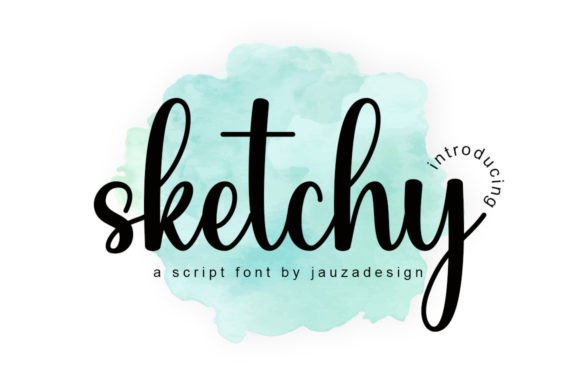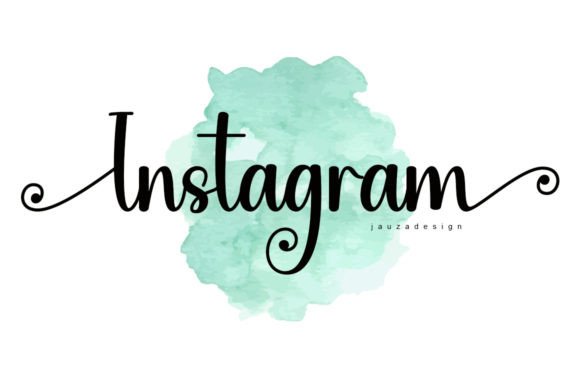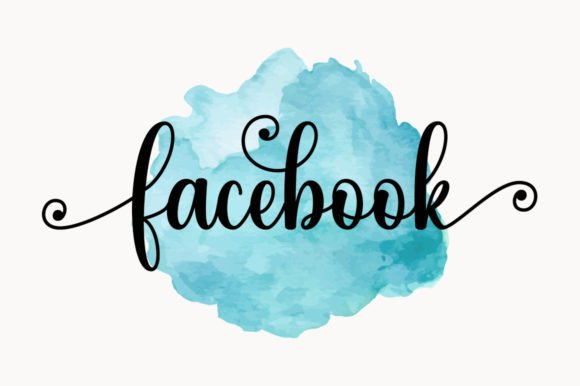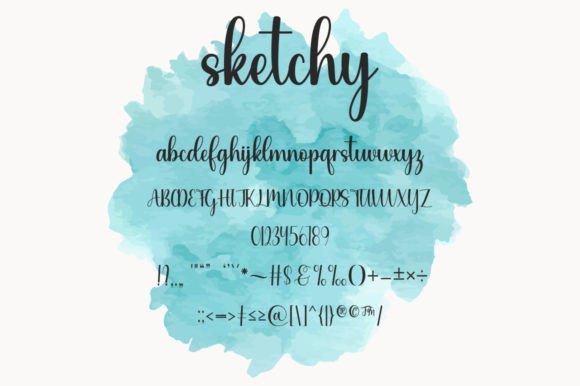
Sketchy Font : A Delicate Script Font for Versatile Design
Sketchy is a lovely and delicate script font that offers surprising versatility for a wide range of creative projects. Its adaptability allows it to enhance various designs, producing delightful results that will amaze you.
Key Features of Sketchy Font
- Delicate Script Style: Adds a sense of elegance and authenticity to your designs.
- PUA Encoding: Easy access to all glyphs and swashes for enhanced creativity.
- Versatile Application: Suitable for branding, invitations, quotes, and more.
Perfect for Multiple Design Projects
Sketchy’s adaptability makes it an excellent choice for:
- Branding and logo design
- Wedding invitations and stationery
- Quotes and inspirational content
- Social media graphics
- Creative projects requiring elegance and authenticity
Enhancing Your Creative Vision
With Sketchy, you can infuse your designs with a sense of elegance and creativity. Its handwritten appearance adds a personal touch that resonates with audiences, making your content more engaging and memorable.
Crafting with Sketchy
For branding and logo design, Sketchy offers the opportunity to create a distinctive visual identity. Its delicate script style can help establish a unique and memorable brand presence that stands out in a competitive market.
Digital Design Applications
In the digital realm, Sketchy shines by adding a touch of sophistication to your content. Use it for:
- Engaging social media posts
- Eye-catching blog headers
- Unique email marketing campaigns
- Distinctive website designs for creative professionals
Sketchy is more than just a font; it’s a creative tool that brings elegance and versatility to your design projects. Its delicate script style makes it suitable for a wide range of applications, from professional branding to personal creative endeavors. By incorporating Sketchy into your designs, you can create visually appealing and memorable content that engages your audience. Whether you’re a professional designer or someone looking to add a personal touch to your projects, Sketchy offers the perfect blend of charm and functionality. Consider pairing Sketchy with clean sans-serif fonts for contrast or complementing it with other script fonts for a dynamic typographic palette. This versatility allows you to create designs that are both elegant and harmonious across various mediums and industries. Embrace the delicate charm of Sketchy today and watch as it transforms your creative ideas into stunning realities. Add this versatile script font to your collection and experience the difference it makes in enhancing your projects with its lovely and unique style!